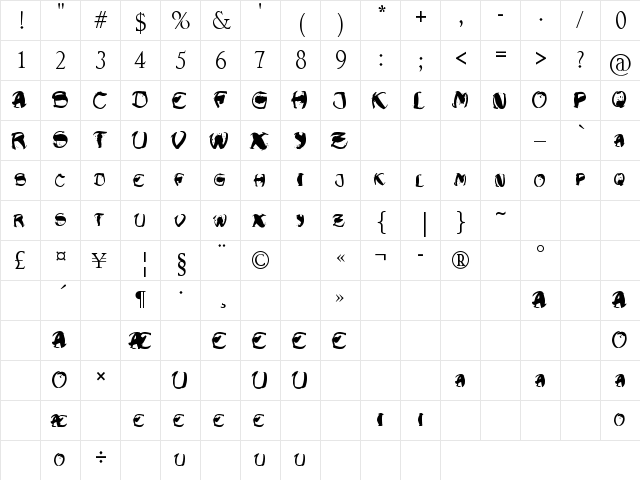
Raslani Shaashimov Regular
Design Context for Raslani Shaashimov Typeface
Raslani Shaashimov is a composed and adaptable typeface that performs quietly and consistently across a wide range of design contexts.